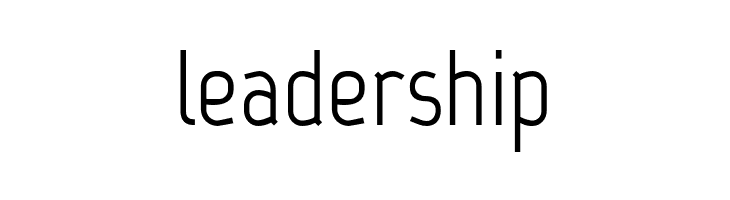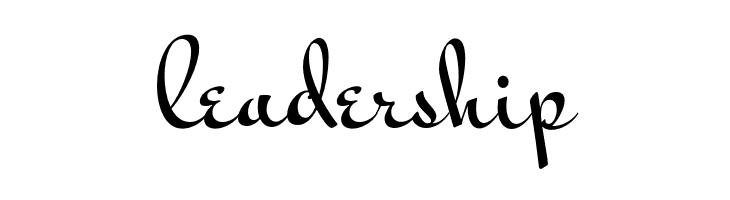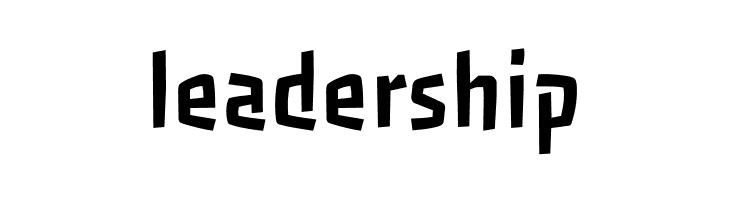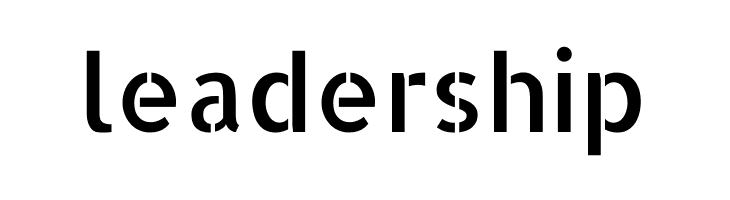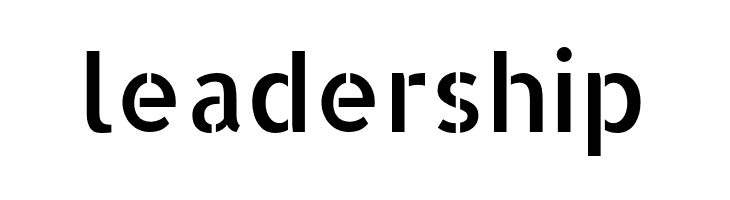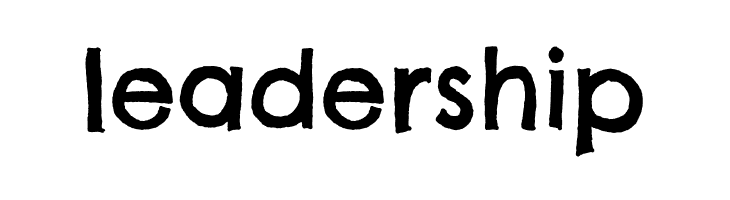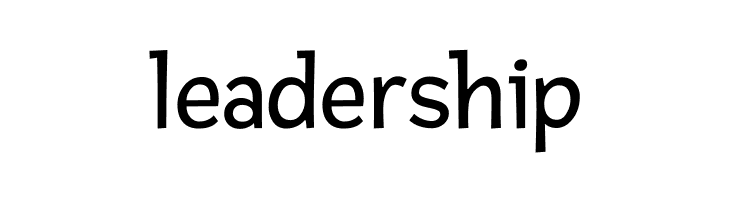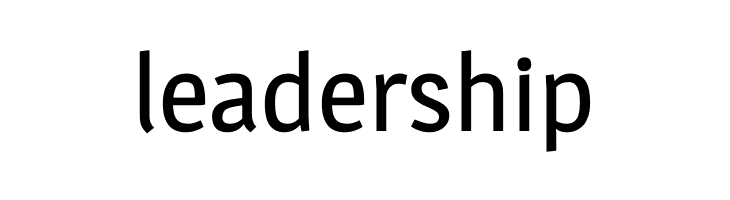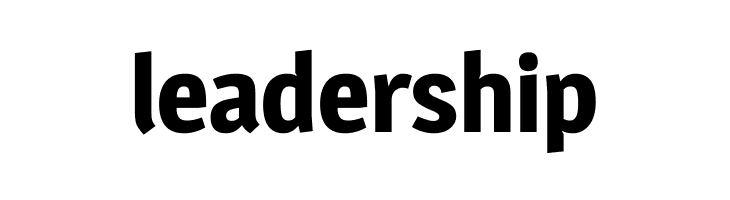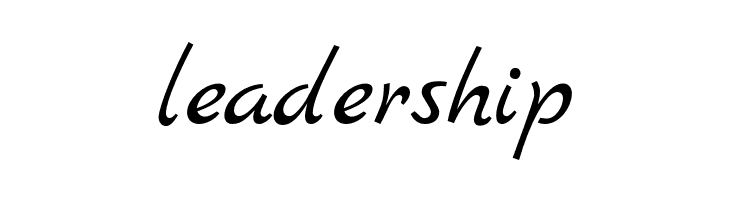
A highly condensed and elegant font with tall, narrow letterforms and minimal contrast.
) A modern, italicized font with clean lines and consistent stroke width.
) A modern, bold italic font with medium contrast and slightly condensed characters.
) A bold, modern sans-serif font with a geometric and professional style.
) A bold, italicized font with a modern, sleek, and slightly condensed style.
) A modern, geometric sans-serif font with balanced spacing and clear readability.
An elegant, flowing script font with a cursive, handwritten style.
A bold, angular font with a modern and dynamic style.
A modern, geometric stencil font with bold, clean lines and cut-out sections.
A bold, geometric stencil font with a modern industrial feel.
A playful, handcrafted font with bold, irregular strokes and a rustic charm.
A modern sans-serif font with clean lines and excellent readability.
A clean, modern sans-serif font with rounded edges and uniform stroke width.
A modern, clean sans-serif font with excellent readability.
& Marck Fogel ) A flowing, cursive script font with elegant, connected characters.
A modern serif font with a balanced and versatile design.
A classic serif font with elegant curves and a sophisticated style.
A classic serif font with modern elegance and medium contrast.
A classic serif font with elegant curves and a refined structure.
A bold, modern sans-serif font with geometric shapes and clean lines.
A bold, modern sans-serif font with clean lines and geometric shapes.
A clean, geometric font with rounded edges and a minimalist design.
A modern, rounded sans-serif font with a clean and friendly appearance.
A modern, rounded sans-serif font with a friendly and approachable style.
A bold, cursive font with smooth, flowing lines and connected characters.
A modern, geometric font with rounded edges and uniform stroke width.
A playful, handwritten-style font with smooth, rounded strokes.
An elegant and fluid cursive font with dynamic stroke variations.
An elegant, flowing script font with smooth, cursive letterforms.
An edgy, thorny font with bold, irregular shapes and sharp angles.